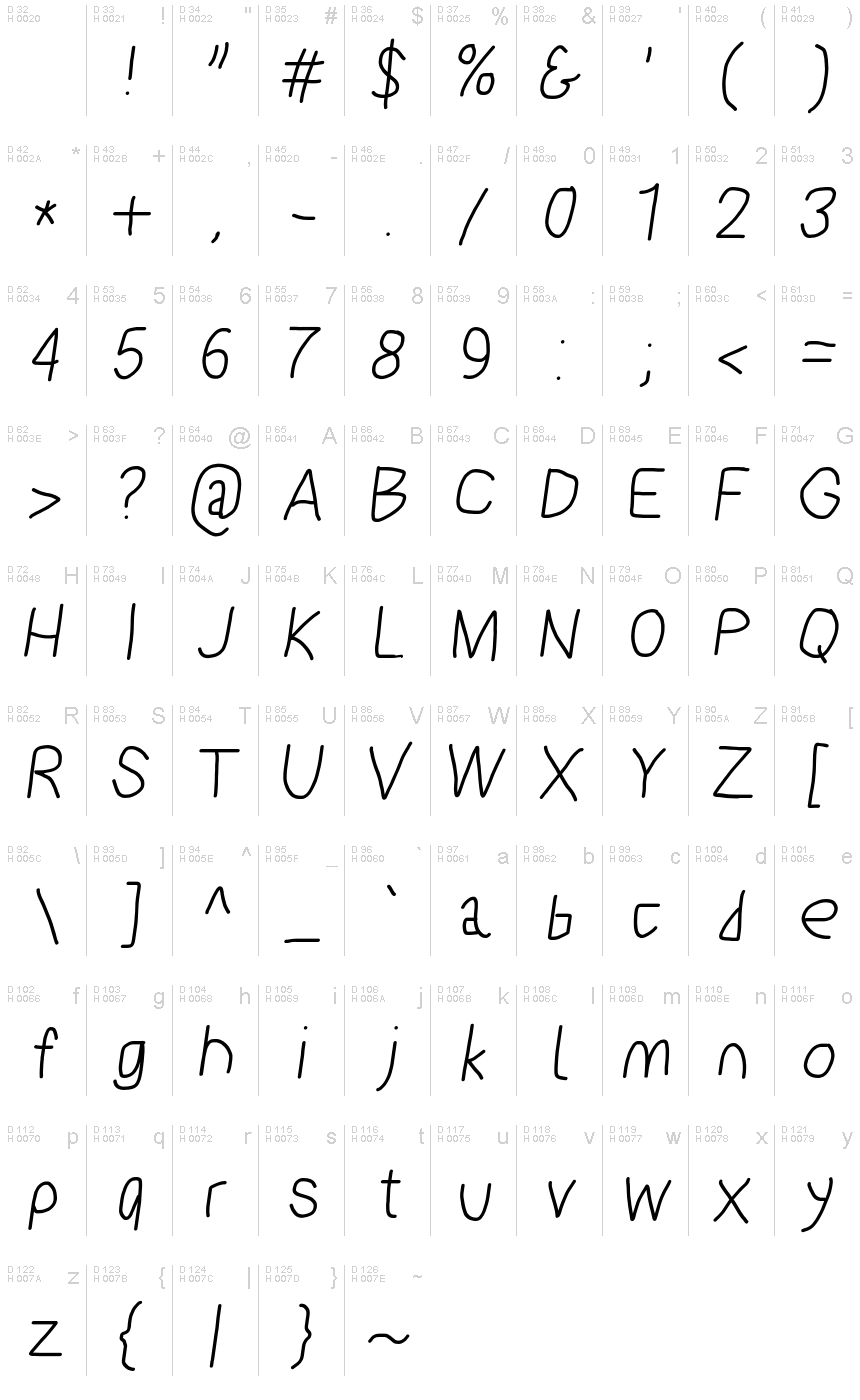
PolanStronk Italic
PolanStronk is a delightfully expressive handwritten font that exudes a captivating blend of elegance and playfulness. The light, fluid strokes and whimsical ligatures create a sense of effortless charm, perfectly suited for a range of design applications. From editorial layouts to greeting cards, this font's distinctive personality can add a touch of warmth and personality to any project. Its versatility extends beyond decorative use, as the clean, legible forms also make PolanStronk an excellent choice for branding, packaging, and even body copy.
Crafted with an eye for detail, this font invites the viewer to engage with its organic, hand-crafted aesthetic.